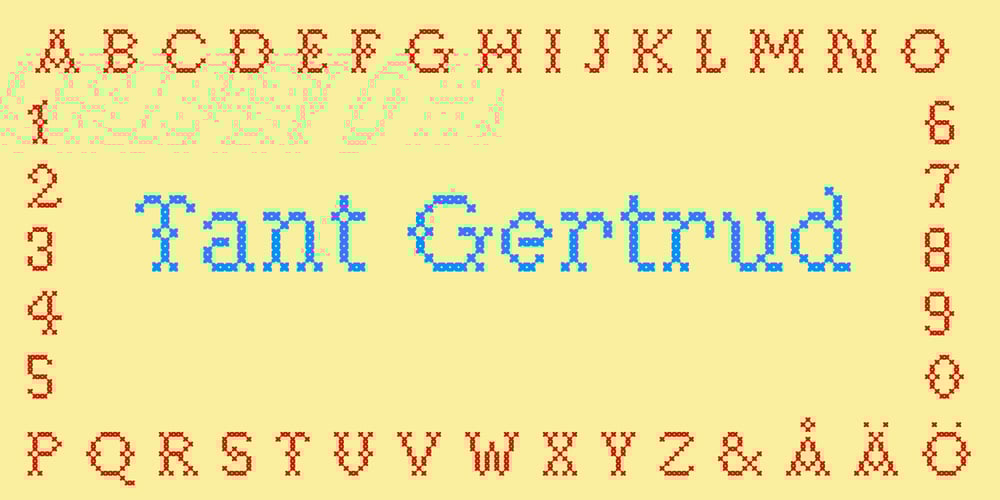
Tant Gertrud Font Family was designed by Lars Törnqvist and published by Cercurius. Tant Gertrud contains 1 styles and family package options. A cross-stitch font based on a classical pattern, including capital and lower-case letters. It is suitable for posters, signs, ads and greeting cards in the Thanksgiving and Christmas season.